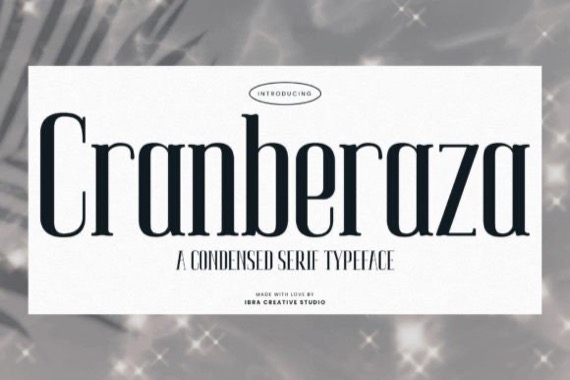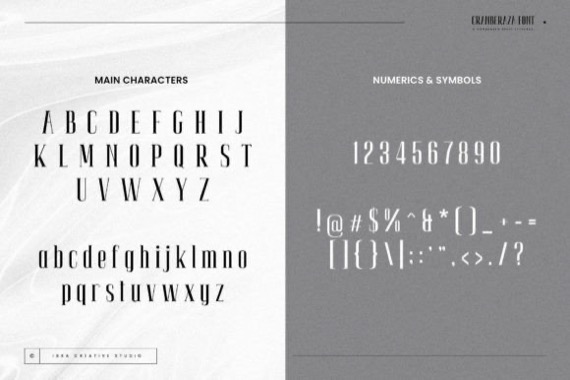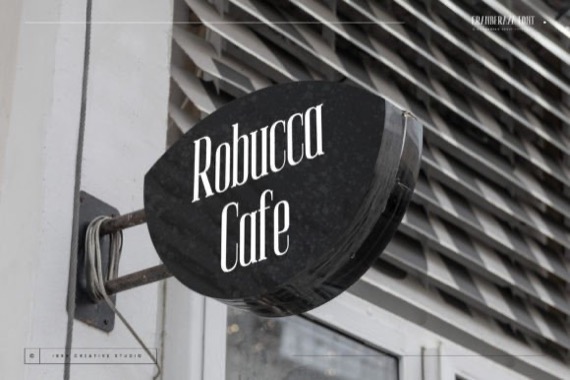
Cranberaza is a stylish and cool display serif font that brings a dash of cool to your designs. It exudes a timeless elegance and modern sophistication. Characterized by its slender and streamlined letterforms, this typeface strikes a harmonious balance between classic serif elements and contemporary design aesthetics. The condensed proportions contribute to a sense of verticality and efficiency, making Cranberaza an ideal choice for applications where space is at a premium. The letter strokes are meticulously crafted with subtle serifs that convey a sense of tradition while maintaining a sleek and versatile appearance.
Cranberaza Serif Font